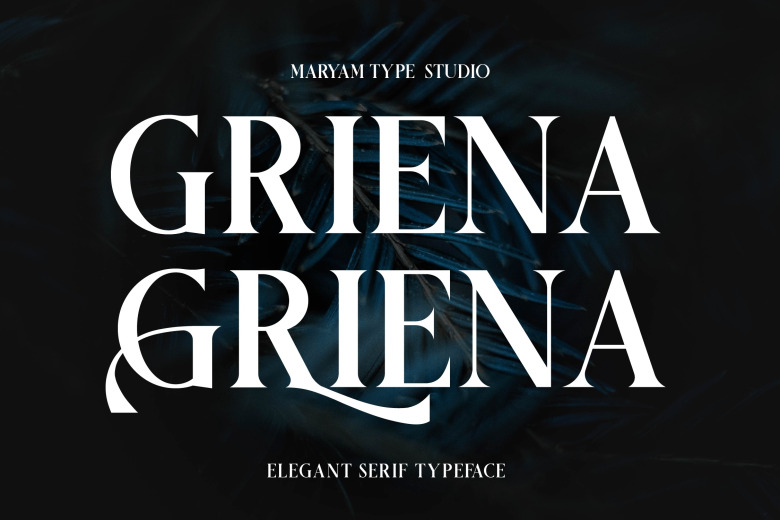
Griena Font
Griena – Elegant Serif Font feautring a uniquelook and modern style. This typeface is perfect for elegant and luxurious logos, book or movie title designs, fashion brands, magazines, clothing, quotes, and more.
Griena Serif Font